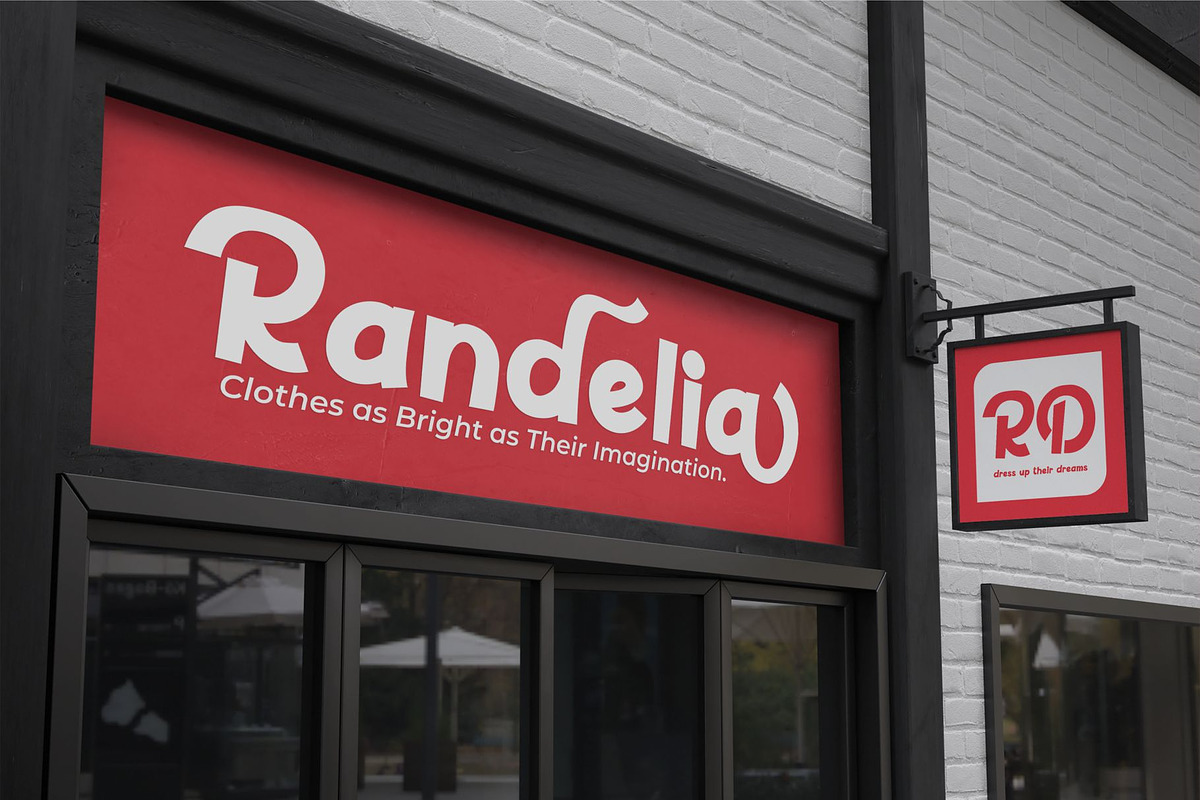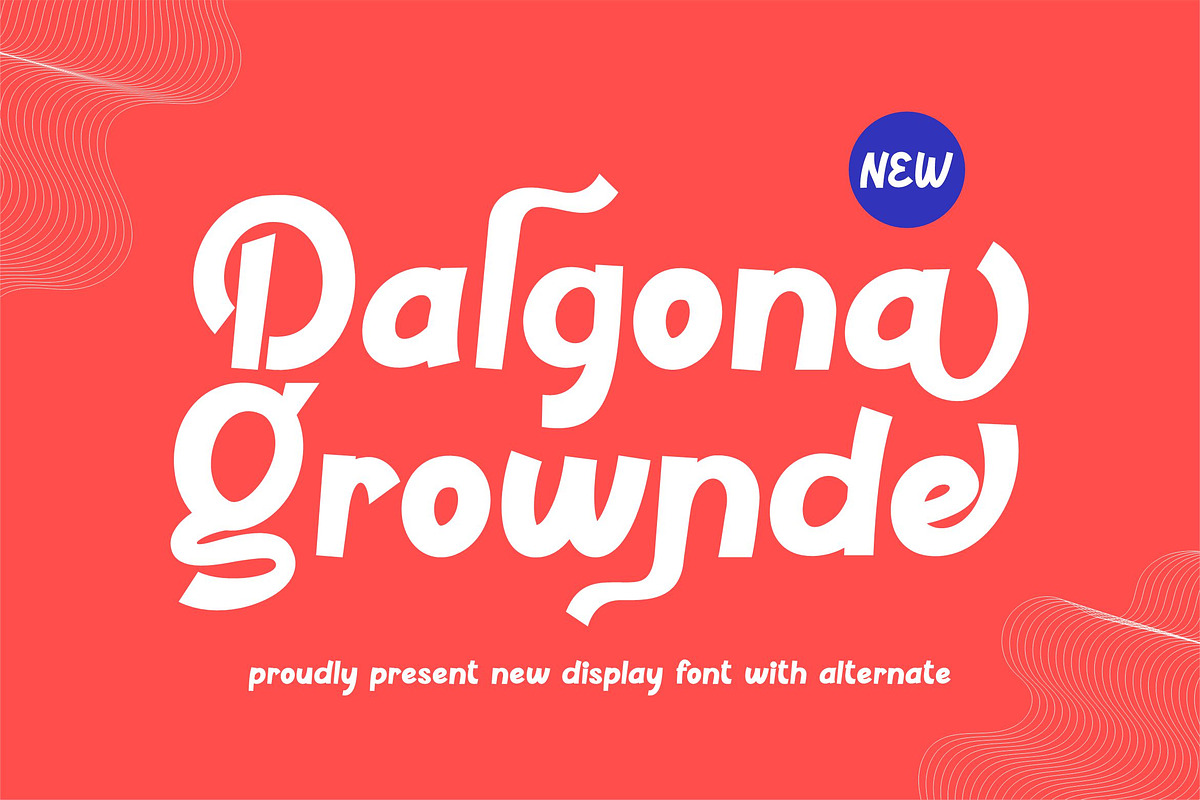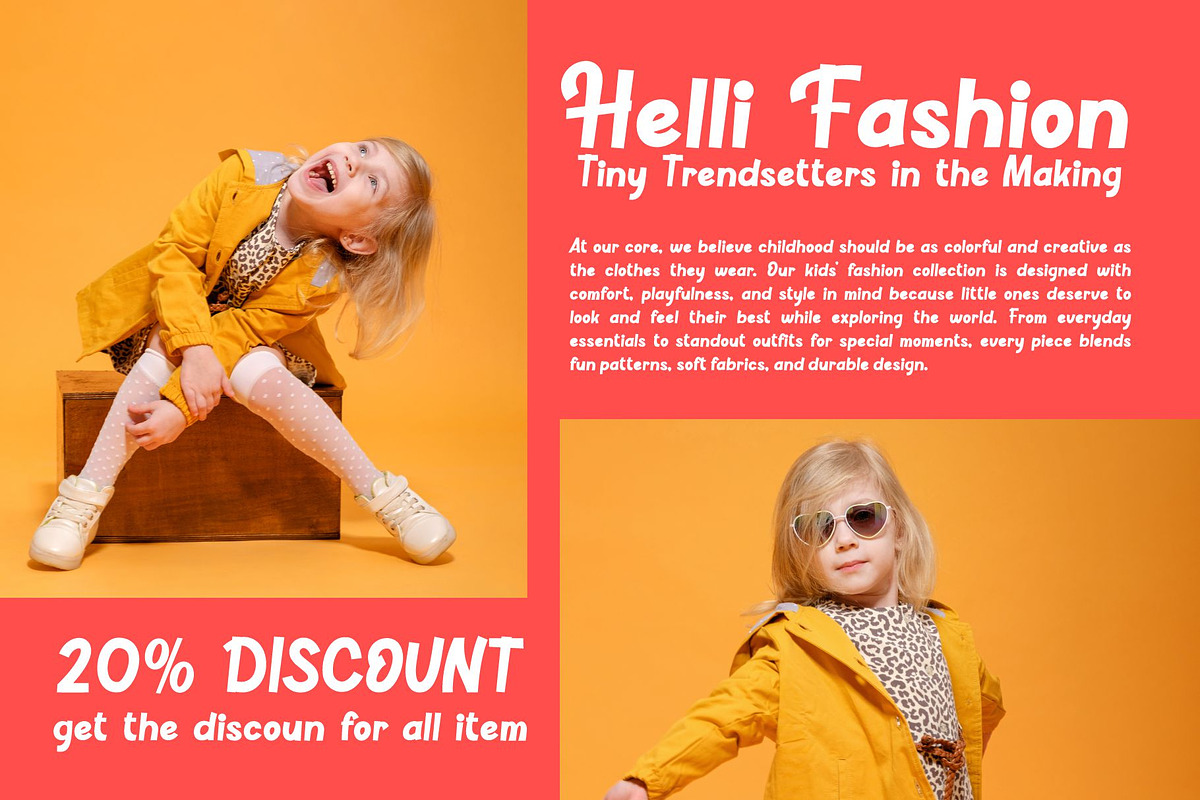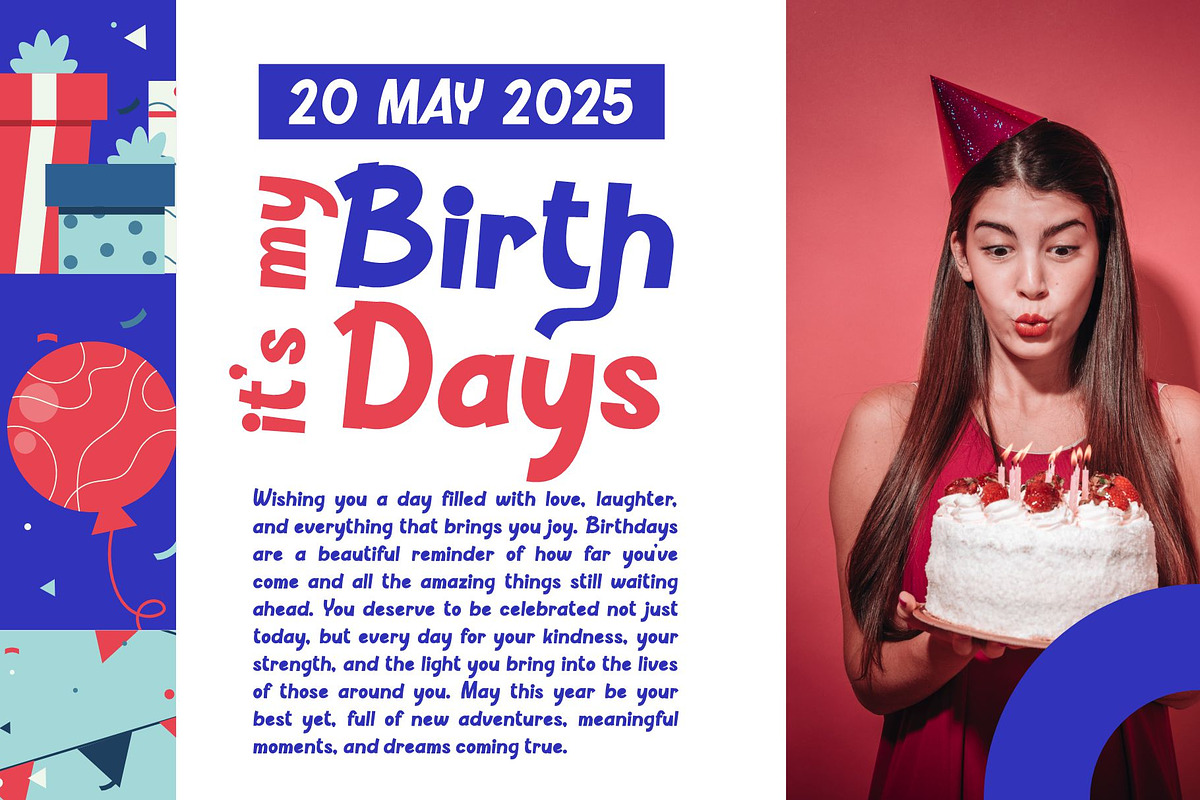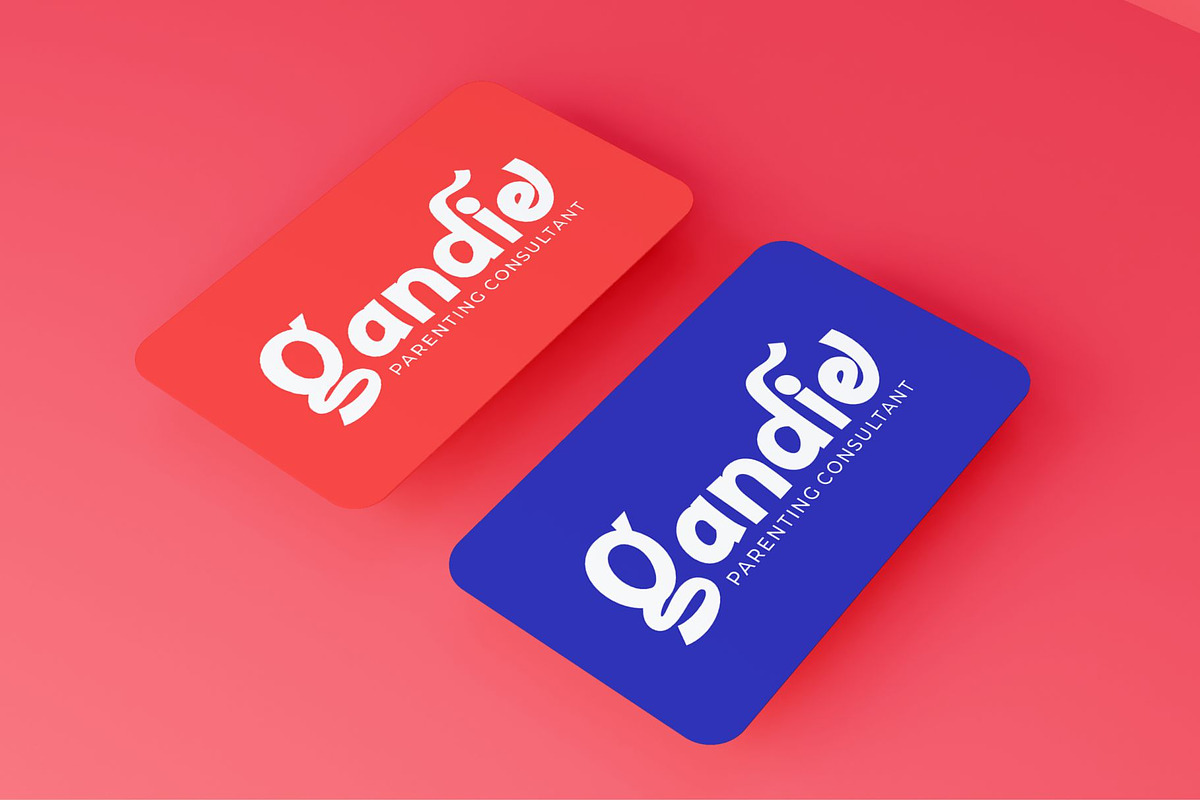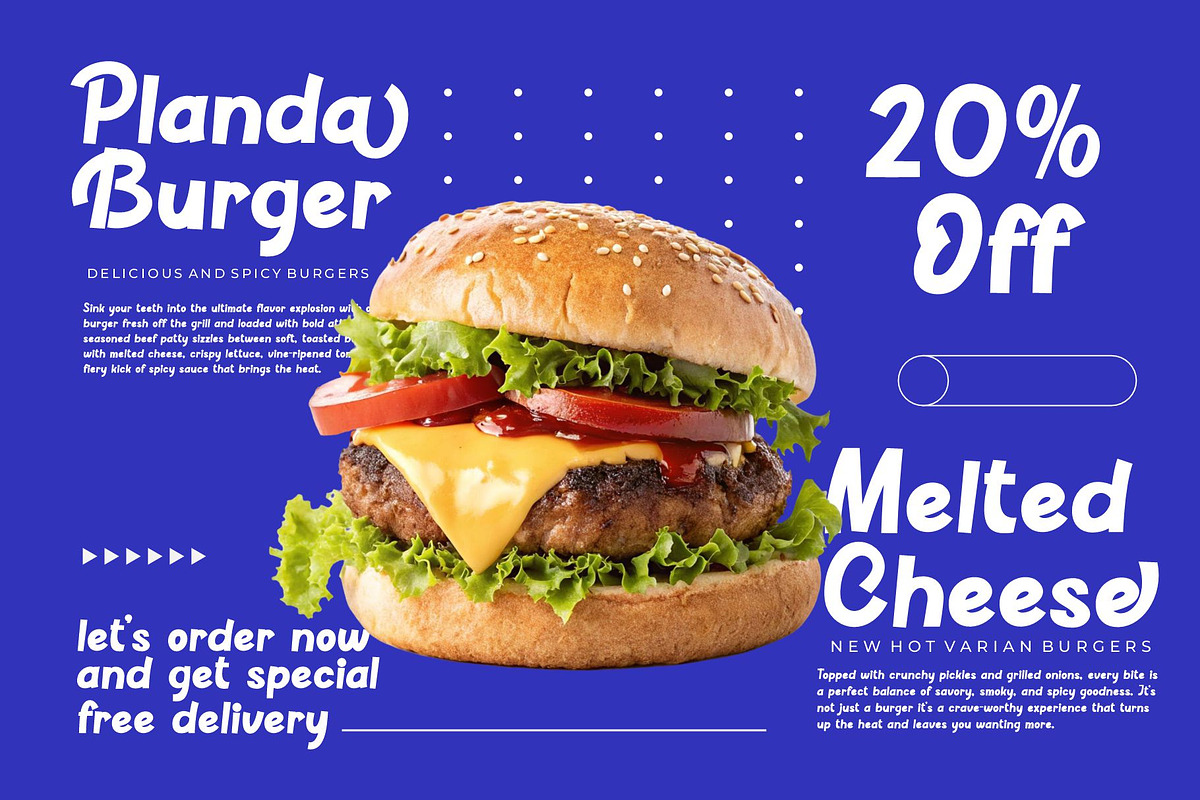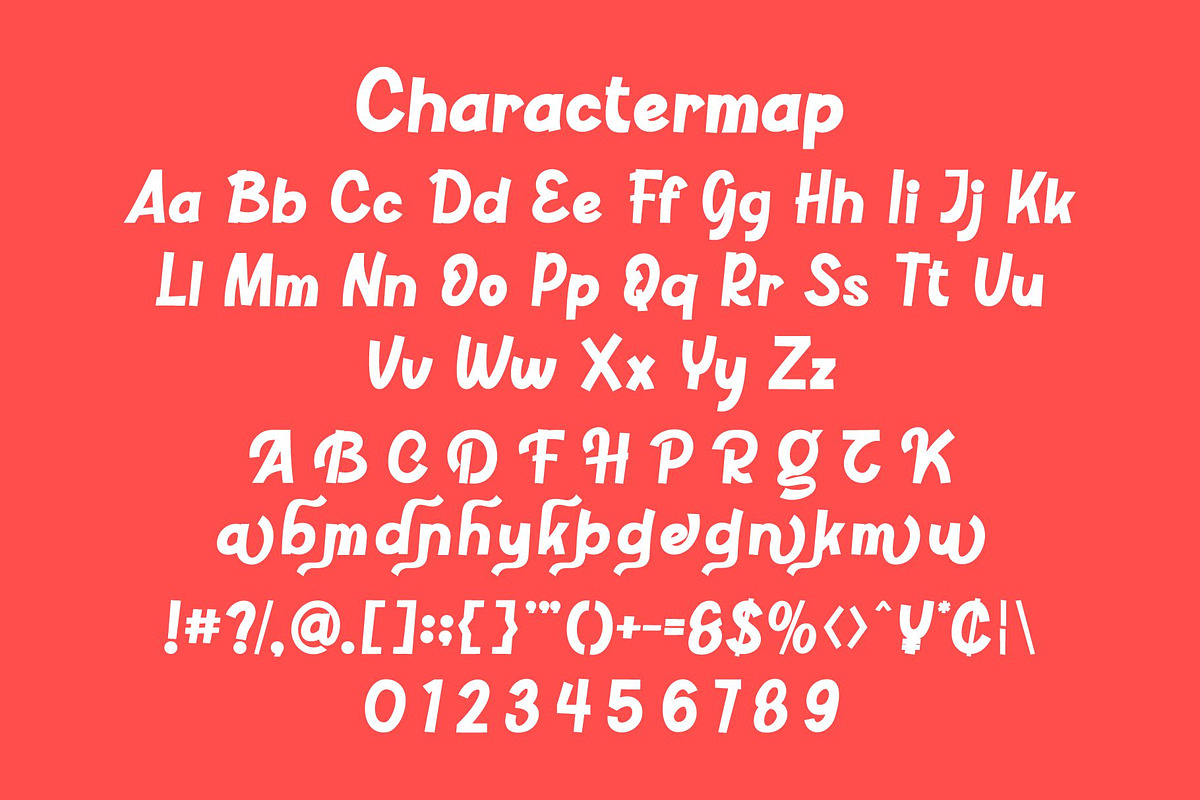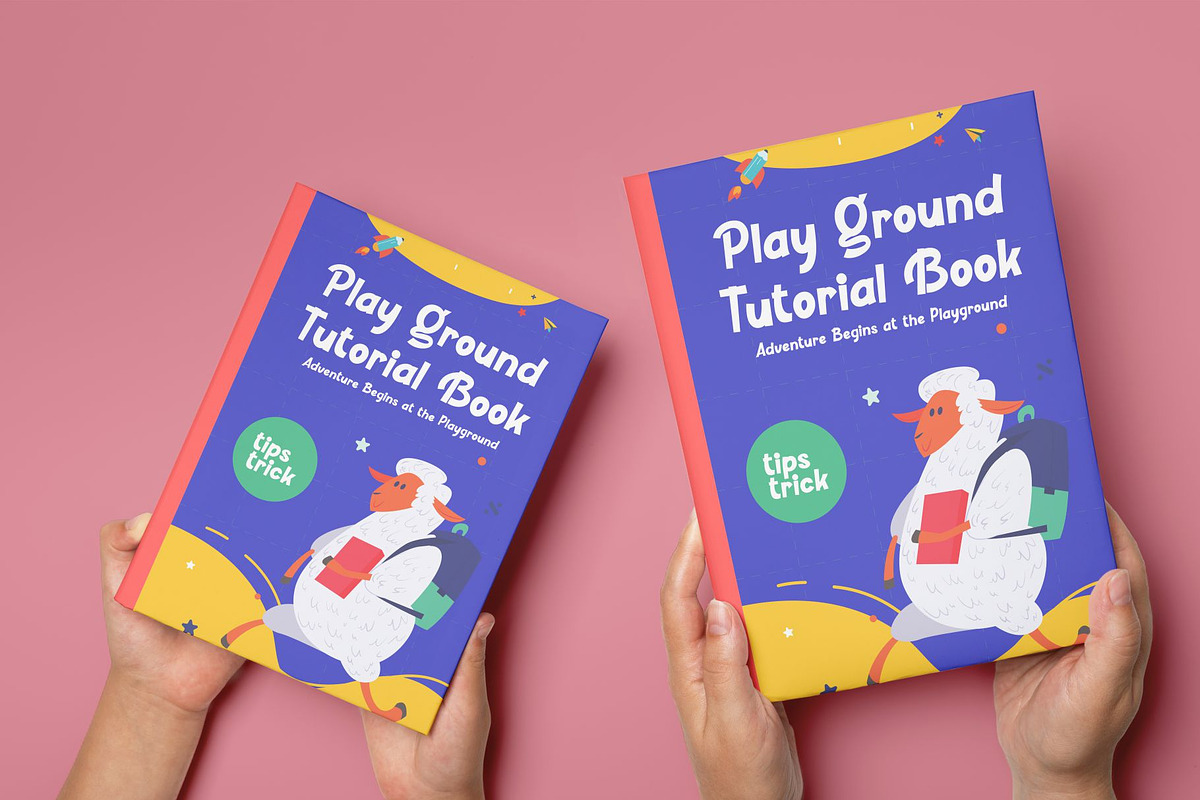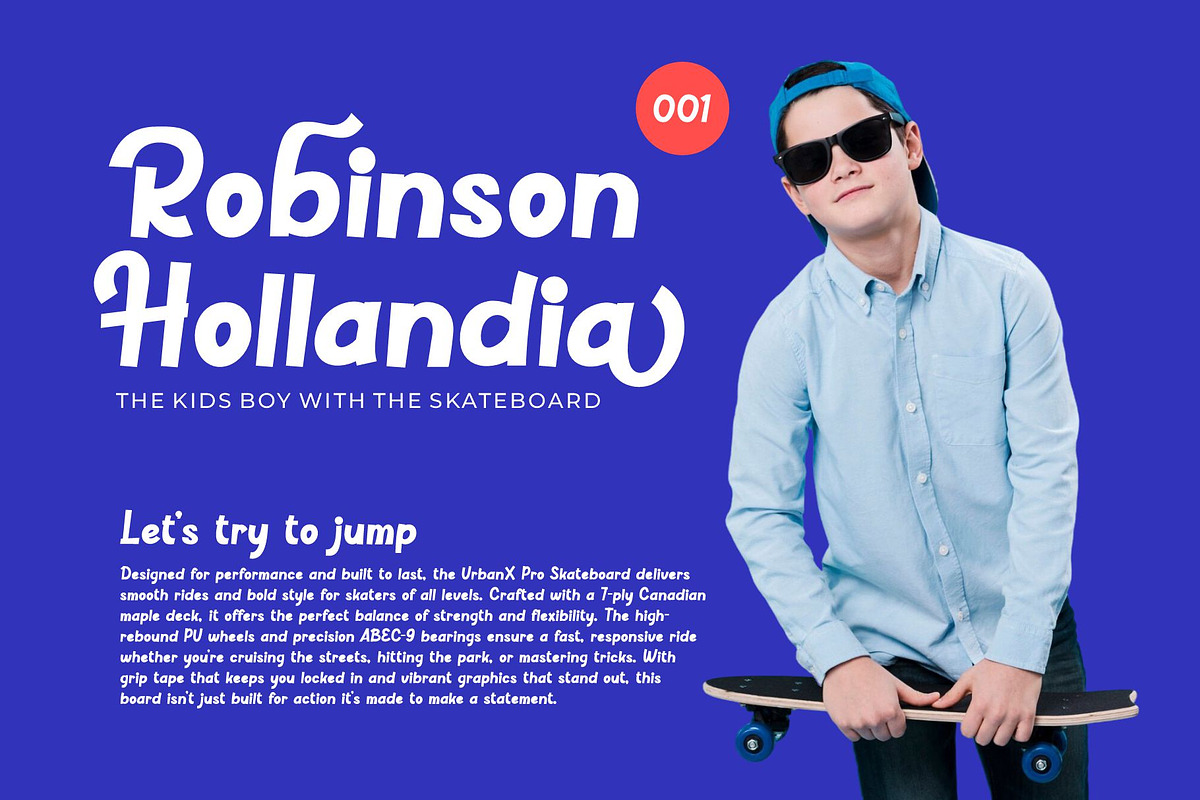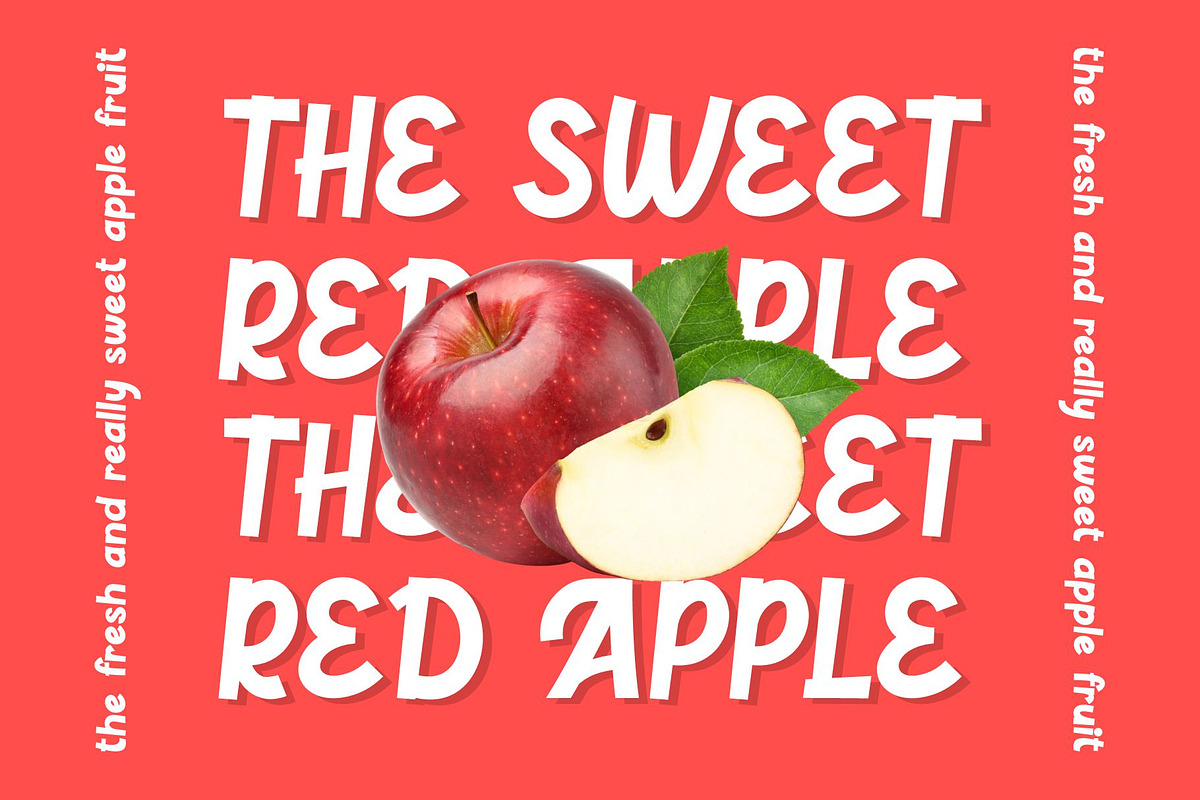
Dalgona Grownde || Unique Sans Serif
Introducing Dalgona Grownde is display Font modern, trendy, bouncy and cute display font. It has a unique character with wood theme. It is perfect to be combined with invitation card designs, company logos, movie titles, movie names, business cards, book titles, brand names and various other designs.